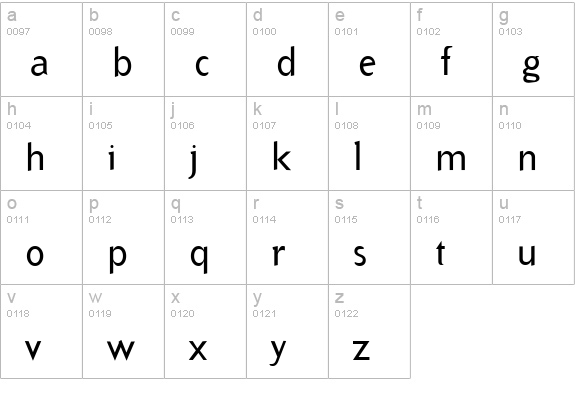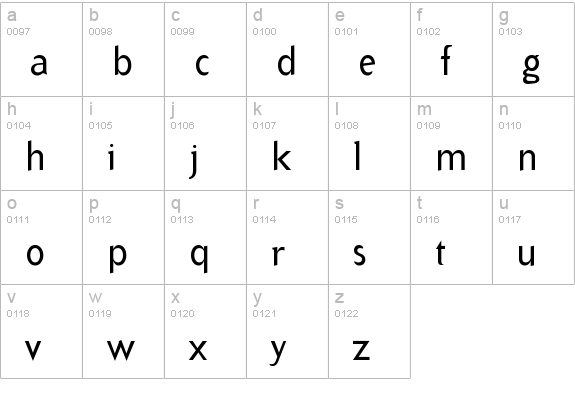
ArbitraryRegular Font Details
ArbitraryRegular is the standard, neutral variant in the ArbitraryRegular typeface family \xE2\x80\x94 well suited to general body text, paragraphs, and standard typographic work.
ArbitraryRegular font is a versatile and modern typeface that is perfect for various design projects. With its clean lines and balanced proportions, this font exudes a sense of professionalism and sophistication. Whether used for headlines, body text, or branding, ArbitraryRegular adds a touch of elegance to any design. The best part? This fantastic font is available for free download at FontsMarket.com. Don't miss out on the opportunity to enhance your projects with the stylish and timeless appeal of ArbitraryRegular font. Download it today and elevate your designs to the next level!